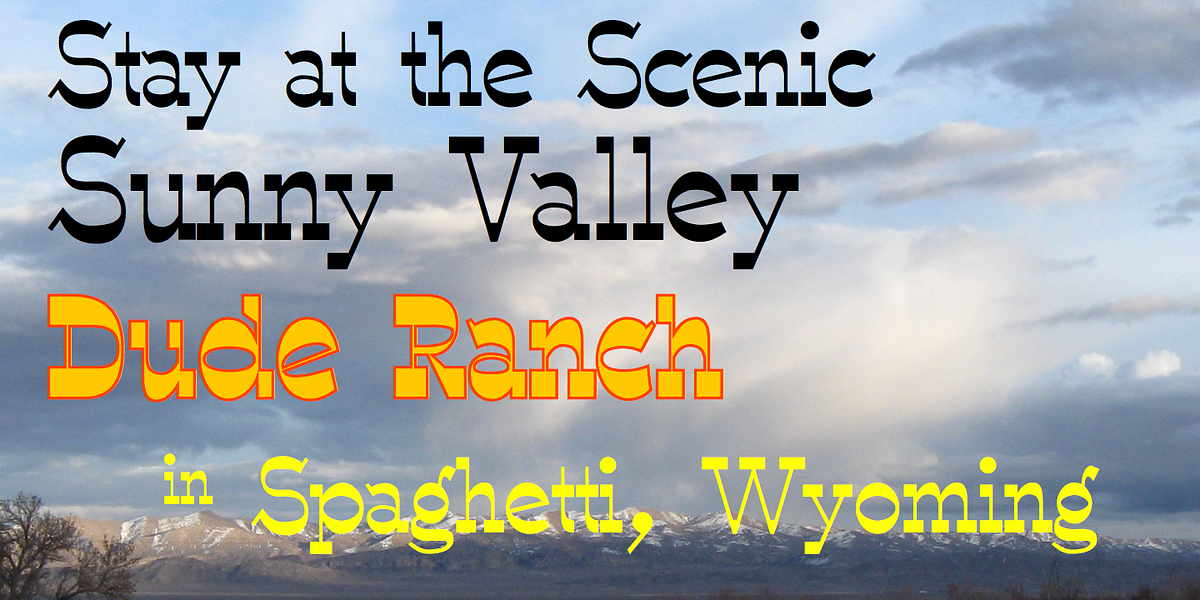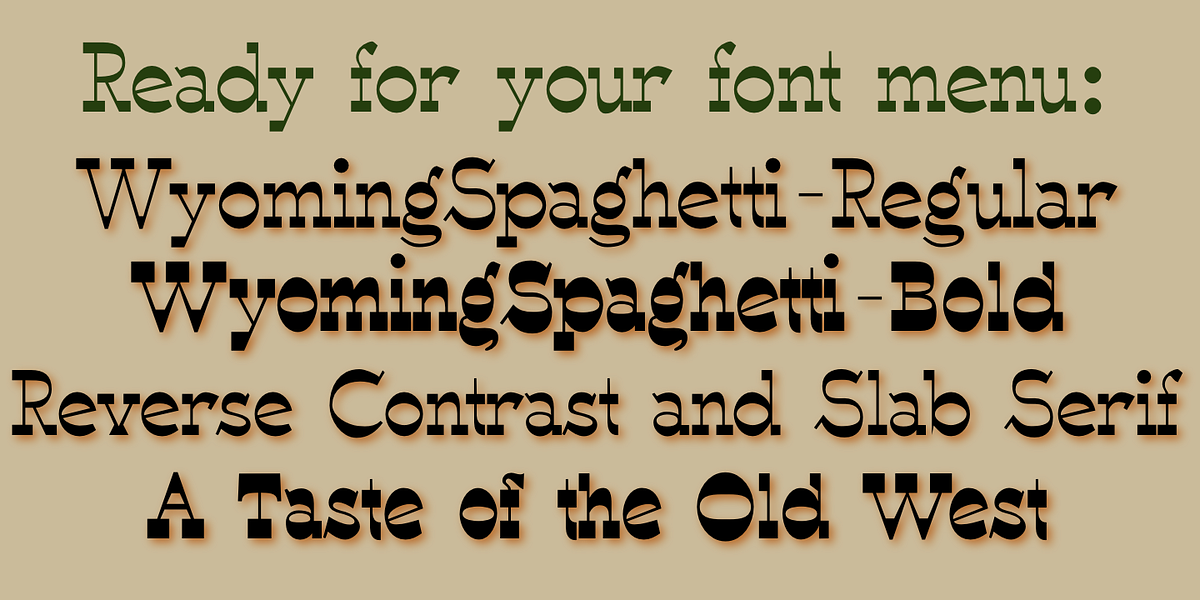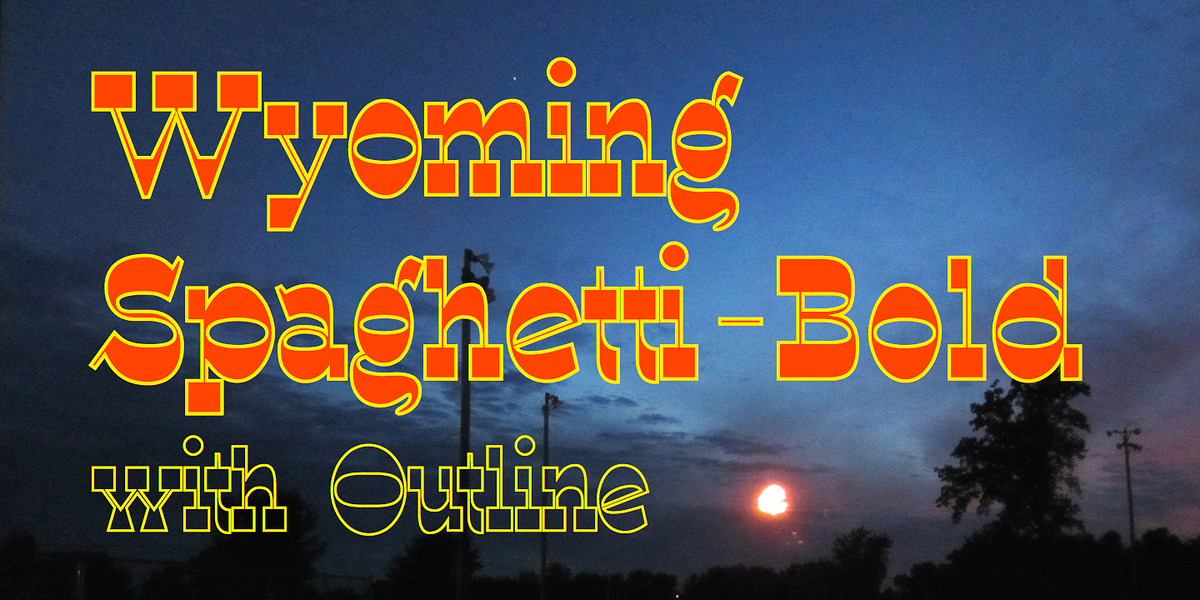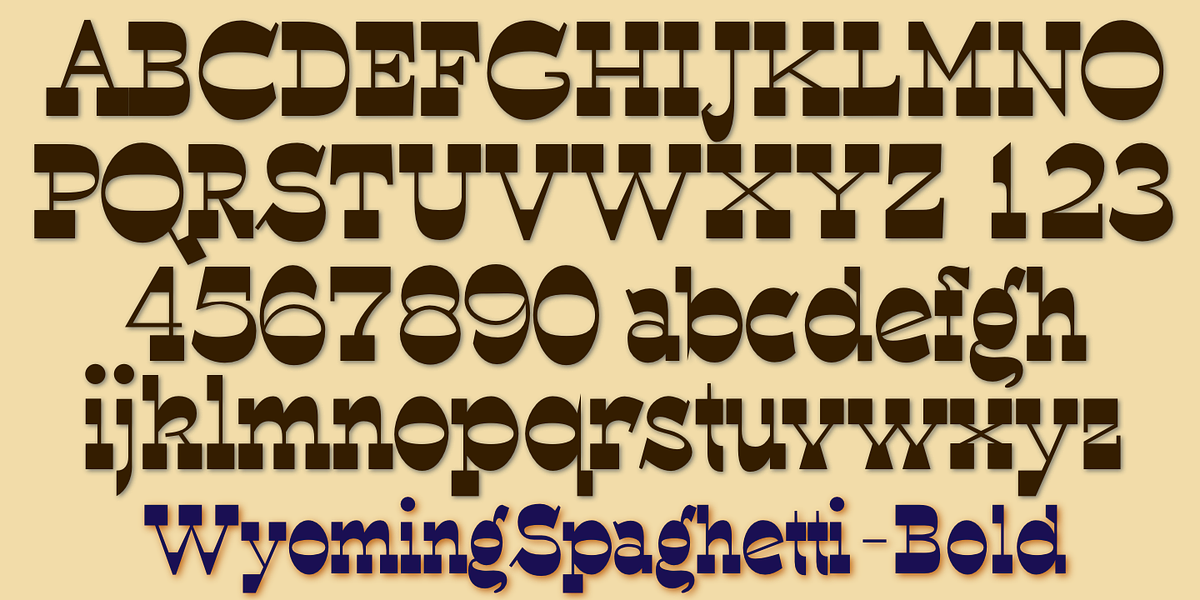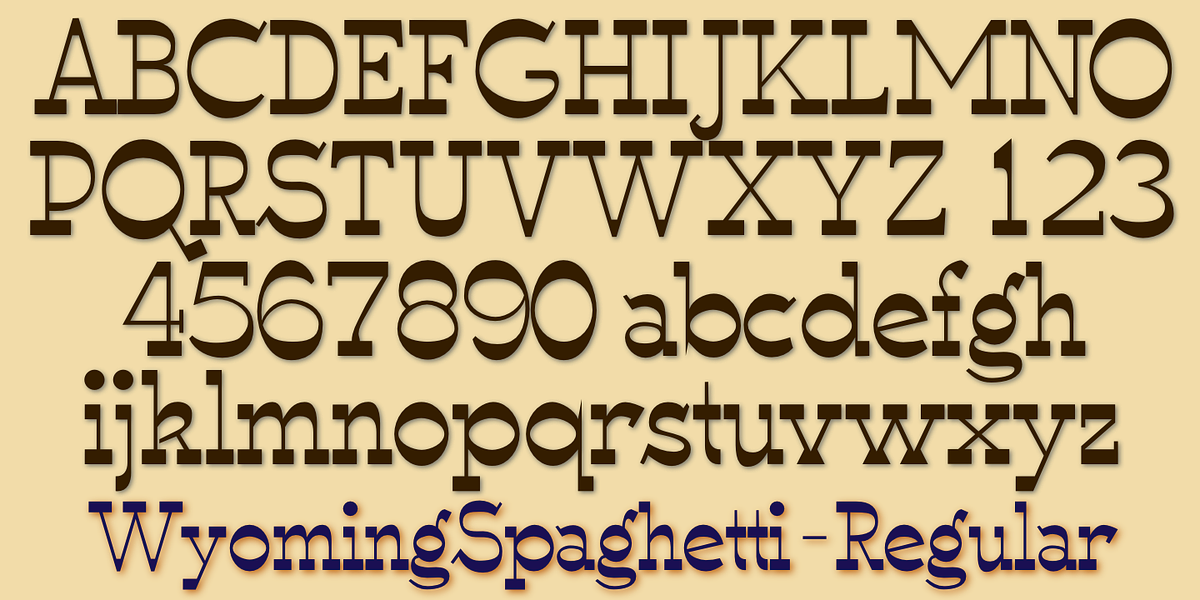
WyomingSpaghetti
WyomingSpaghetti is a bold display slab serif typeface that draws inspiration from the thick, square serifs popular in 19th-century Western-themed typography. While many fonts of this style are condensed, WyomingSpaghetti features a more open letterform with a nearly circular 'o'. This unique characteristic sets it apart while maintaining the bold, rustic aesthetic commonly associated with the Old West.